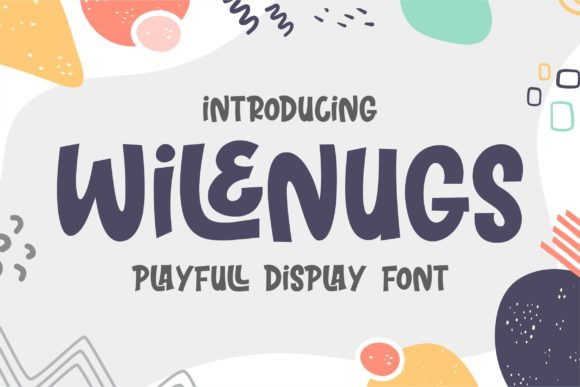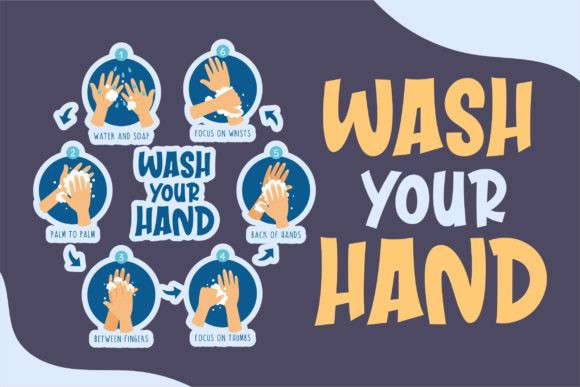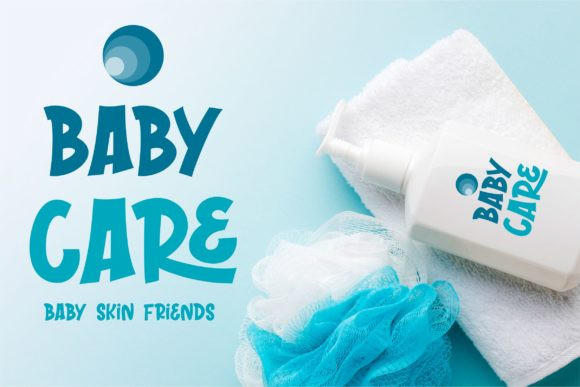
Wilenugs Font
Wilenugs is a cute and chunky lettered display font. It will add an incredibly joyful touch to your designs. Add this beautiful display font to each of your creative ideas and notice how it makes them stand out!